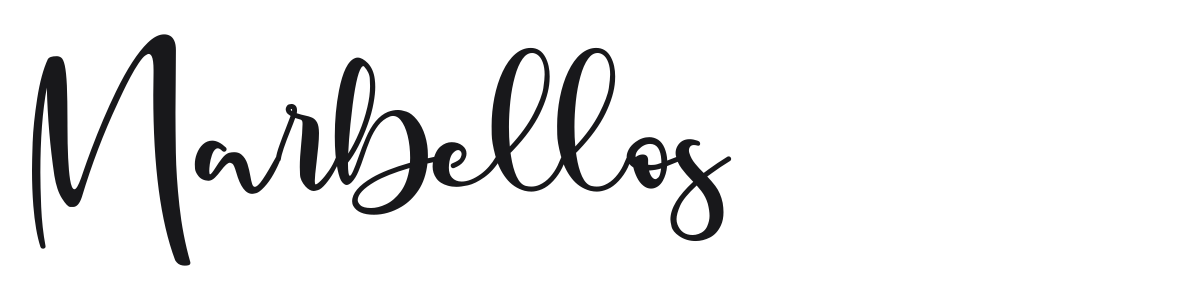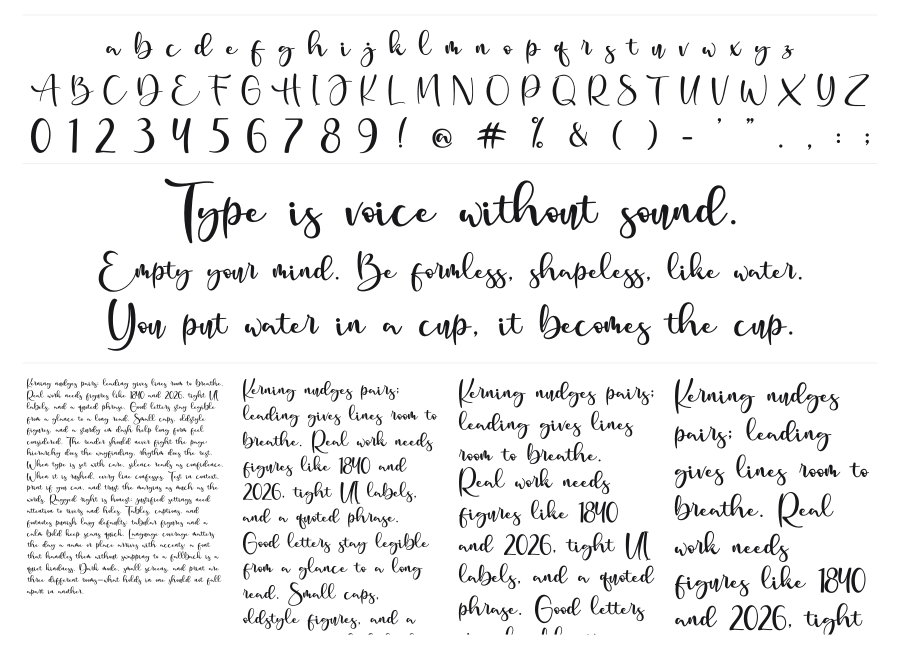
Marbellos
Marbellos is a contemporary brush script from DuanollesStudio with a lively bouncing baseline and high stroke contrast that mimics natural ink pressure. The flowing connected letters and expressive swash details give it the warmth of hand-lettering at headline scales. It sits comfortably in wedding stationery, branding, and lifestyle packaging where a personal, handcrafted feel is the point.